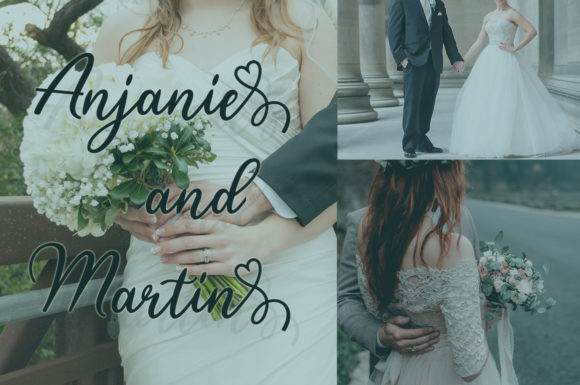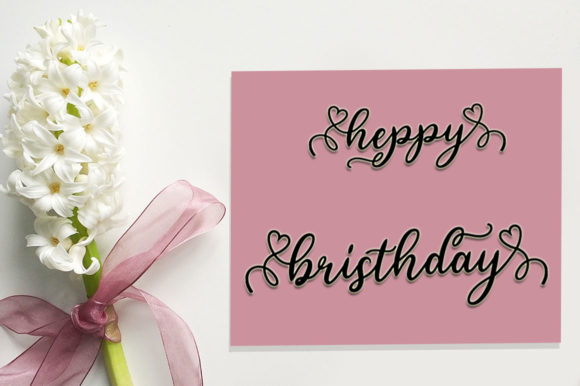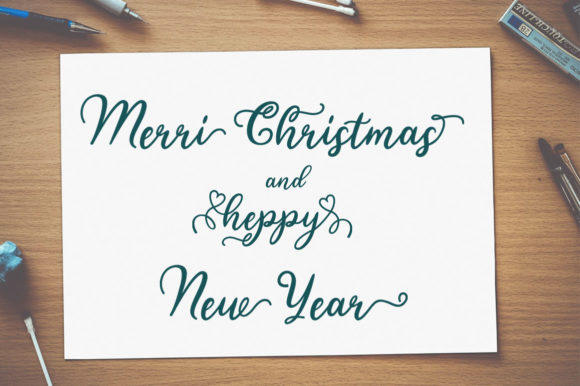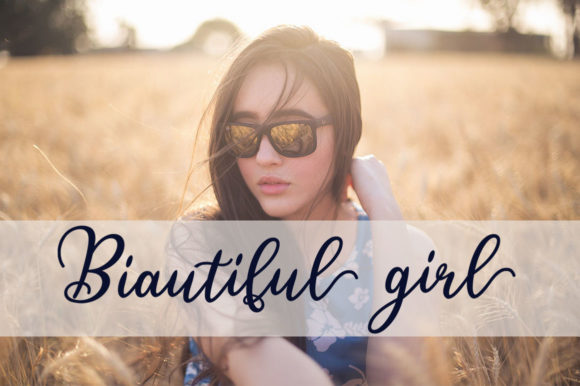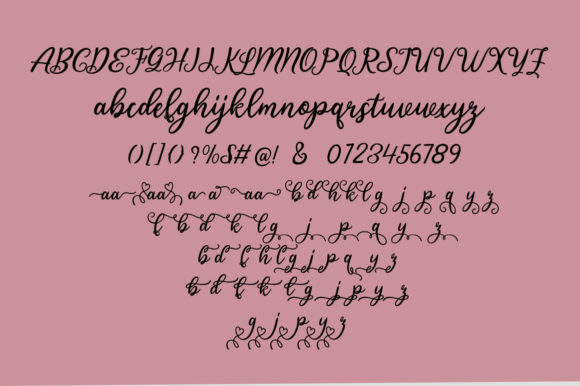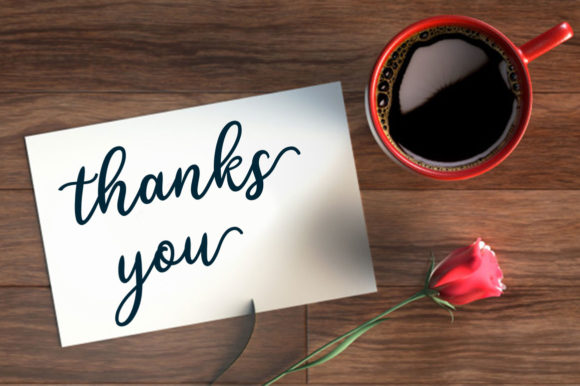
Introduction to Christabel Font
The Christabel is a fresh and modern calligraphy script.
It has decorative characters and a dancing lineage which will look perfect on invitations, greeting cards, branding materials, business cards, quotes, posters and much more .
Christabel Font offers exceptional quality and versatility, making it a valuable addition to your design toolkit. Whether you’re creating for personal projects or commercial use, Christabel Font delivers professional results.